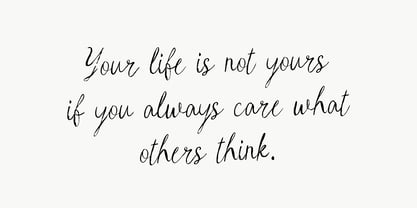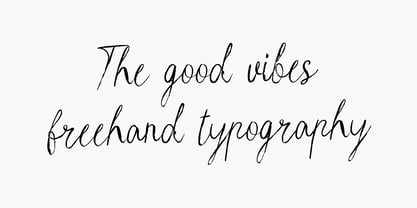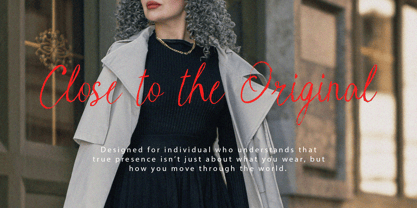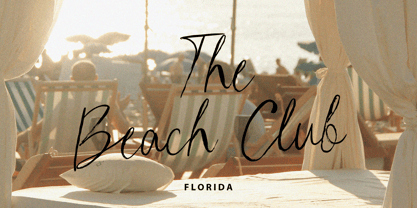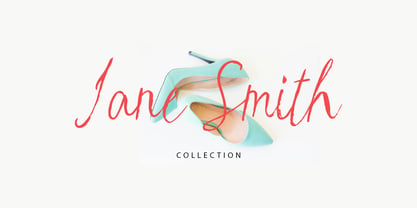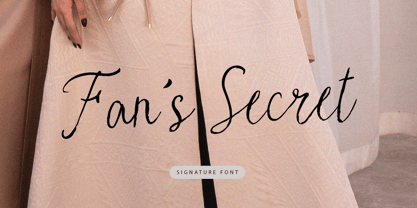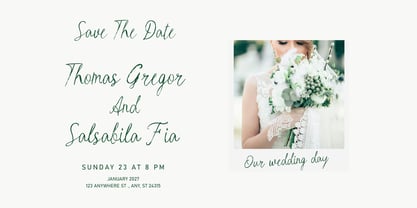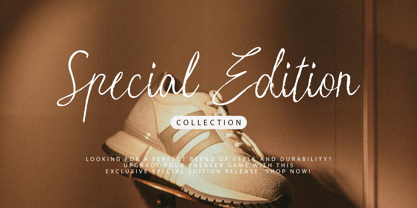
Fans Secret
by Realtype
The Fans Secret Font Family was designed by Alam Syahril and published by Realtype. Fans Secret contains 1 styles. More about this family
Fans Secret consist of a sophisticated, elegant, classy and modern handwriting style. With a little dirty curvature and made from the typography of new trends, Fans Secret has a smooth wet ink look suitable for adding a modern and classy touch to your project.
Perfect for branding, weddings, social media, product design, stationery, etc. Fans Secret can add to all projects where hand touch is needed. Try mixing your design with this font.
Don't hesitate to pair with serif or serif in your work idea. Find interesting layouts to complement your project. This font has include multilingual support.